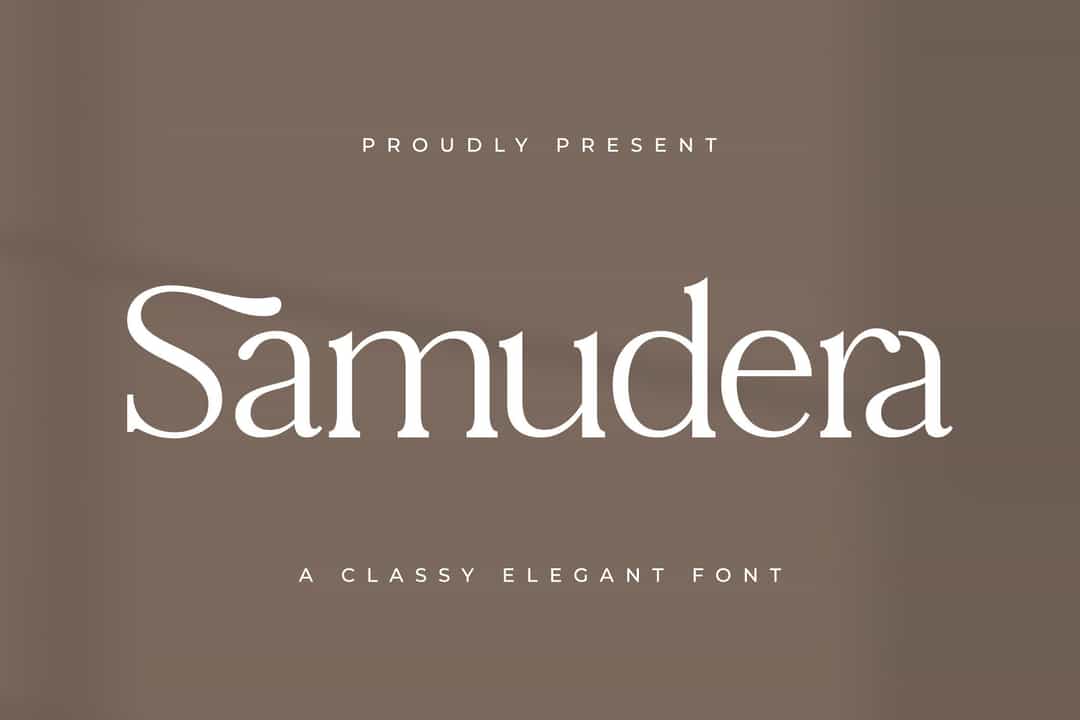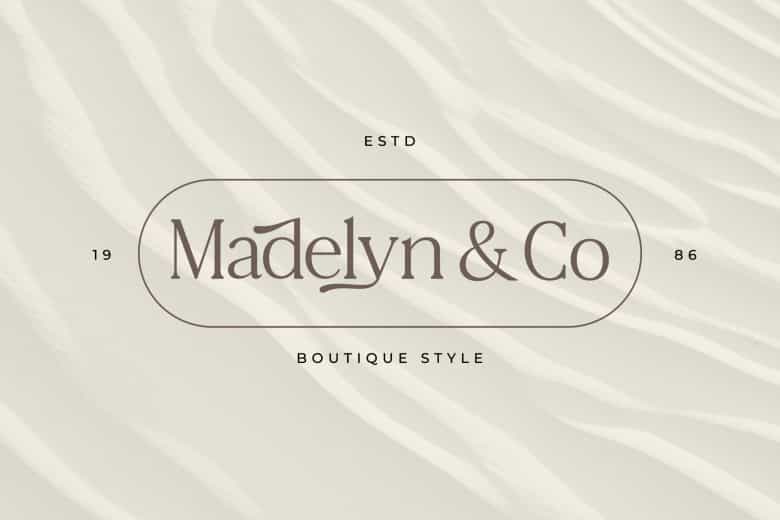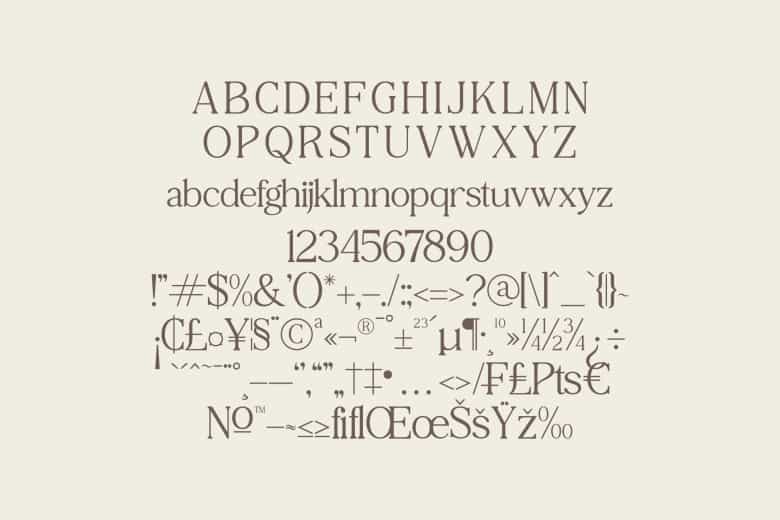
Samudera Serif Typography was designed by Storytype as a modern serif and classic font with its distinct style and contemporary appearance, perfect for creating classy logos, book/film name designs, fashion clothing brand names, magazine letters, quotes and much more.